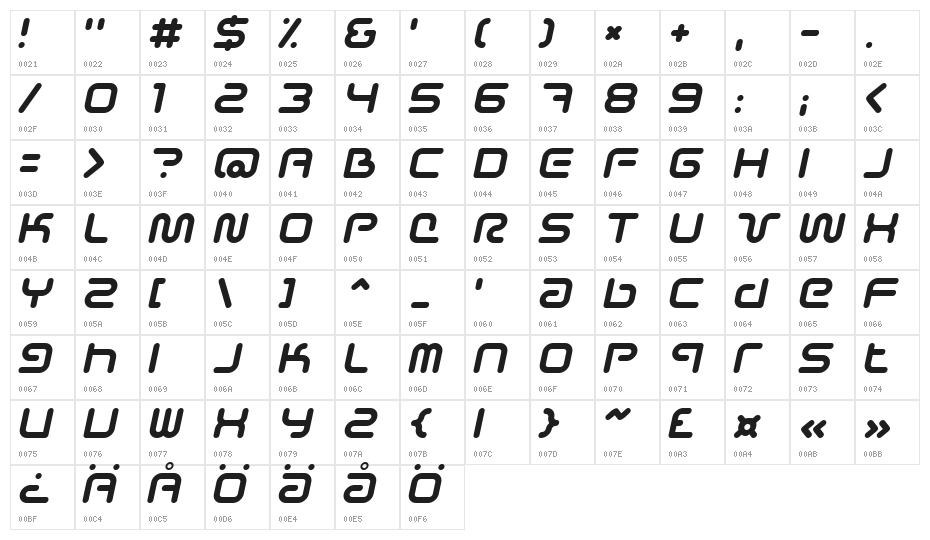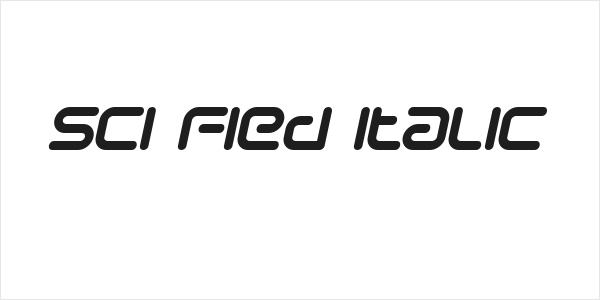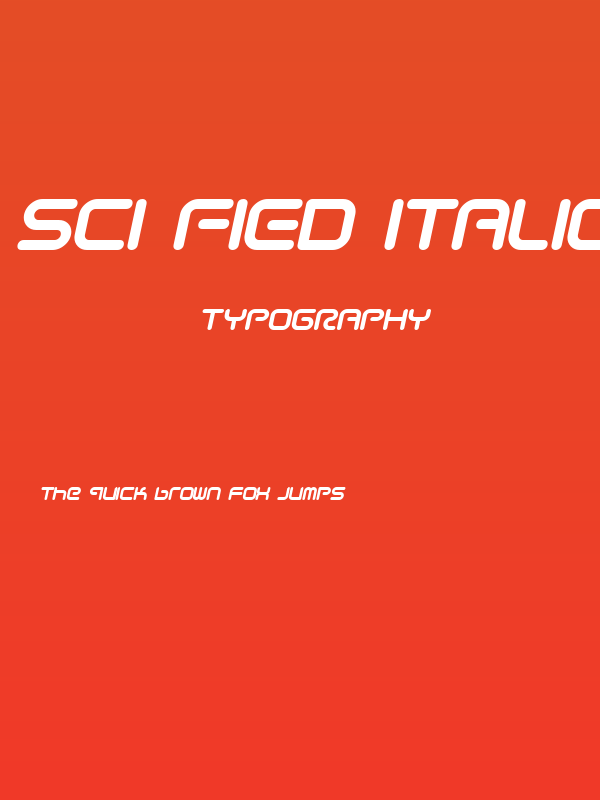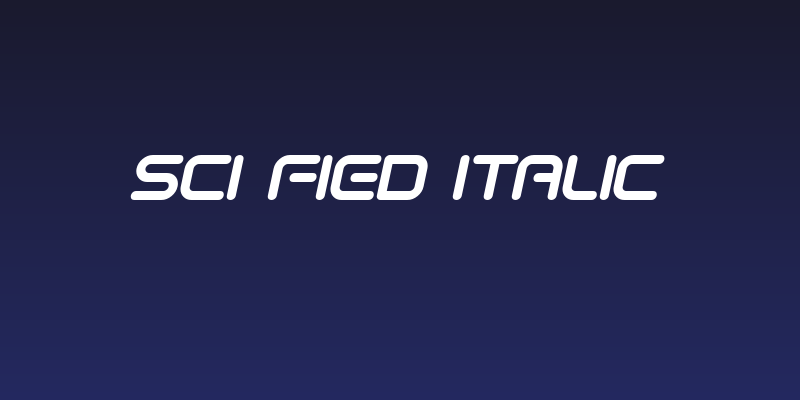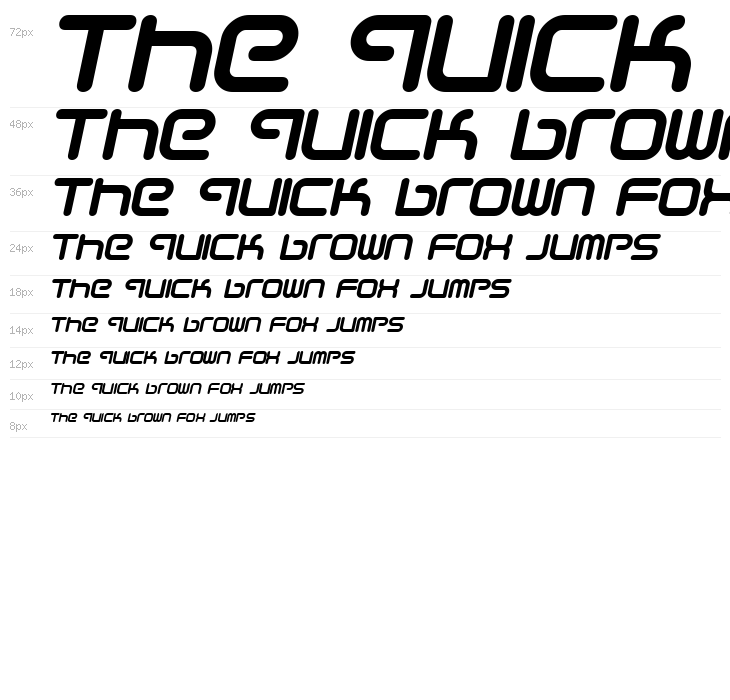
Sci Fied Italic Font
Sci Fied Italic Description
This futuristic font features a sleek, italicized design with rounded edges and a distinct sci-fi aesthetic. The characters are uniformly styled with a consistent stroke width, giving it a clean and modern appearance. The font's design incorporates smooth curves and geometric shapes, creating a sense of motion and fluidity. It is well-suited for projects that require a contemporary and innovative look, such as technology branding, video game titles, or science fiction themes. The spacing between characters is balanced, ensuring readability while maintaining its unique style.
| Proposed Projects | Ideal for technology branding, video game titles, sci-fi themes, and modern advertising. |